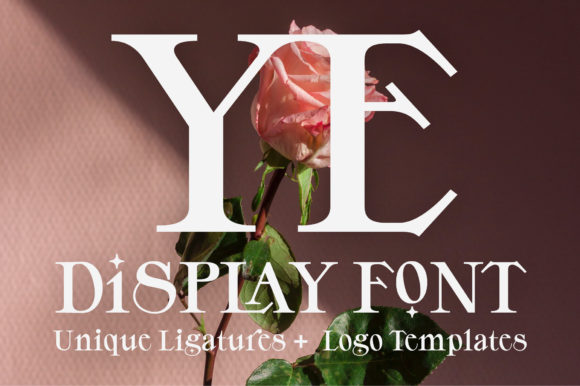
Dive into the world of YE Font, a captivating display font that will ignite your creativity and leave a lasting impression on your designs. With its distinct and striking characters, YE Font is not just another font; it's an artistic expression that speaks volumes.
Unleash your imagination and let YE Font take center stage in your projects. Whether it's logos, posters, social media graphics, or website designs, this font will command attention and leave your audience in awe. Its bold and legible structure ensures that your message will shine through, making it the perfect choice for headlines, titles, and impactful statements.
Experience the versatility of YE Font as it effortlessly adapts to various design styles and themes. Its bold, geometric lines bring a modern and edgy touch to contemporary designs, while its clean and minimalist aesthetic blends seamlessly with classic and elegant projects. The possibilities are endless, allowing you to create designs that resonate with your unique vision and style.
YE Font is more than just a collection of letters; it's a creative tool that empowers you to craft designs that captivate and inspire. Its distinct character shapes and dynamic flow create a visual rhythm that draws the eye and keeps it engaged. Embrace the artistry of YE Font and watch your designs transform into visually stunning masterpieces.
Get ready to unlock a world of creative possibilities with YE Font. Its captivating display style will elevate your designs to new heights, leaving your audience mesmerized. Embrace the power of YE Font and embark on a journey of artistic expression that will redefine your creative boundaries.